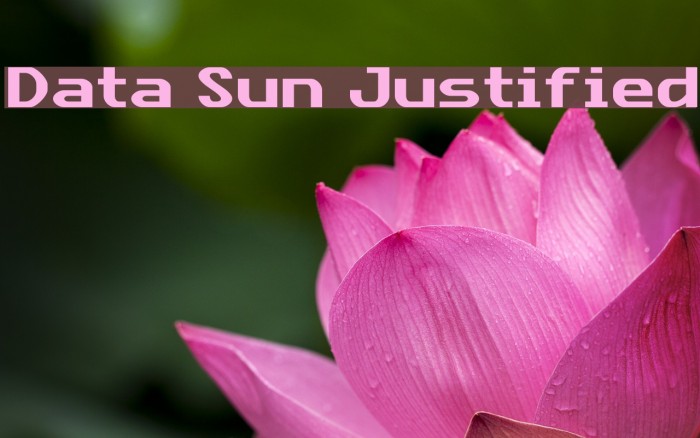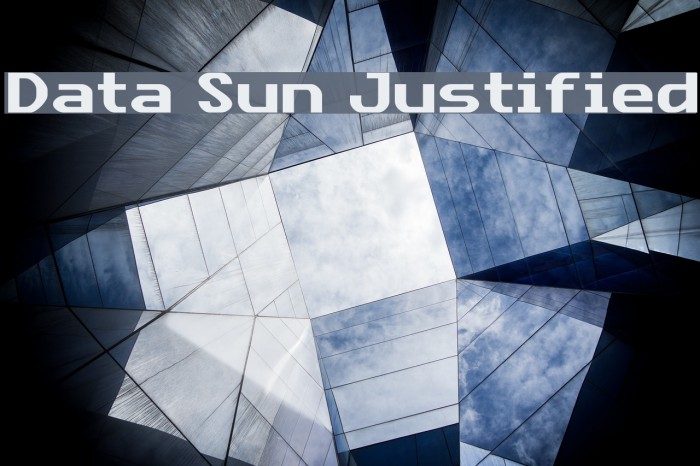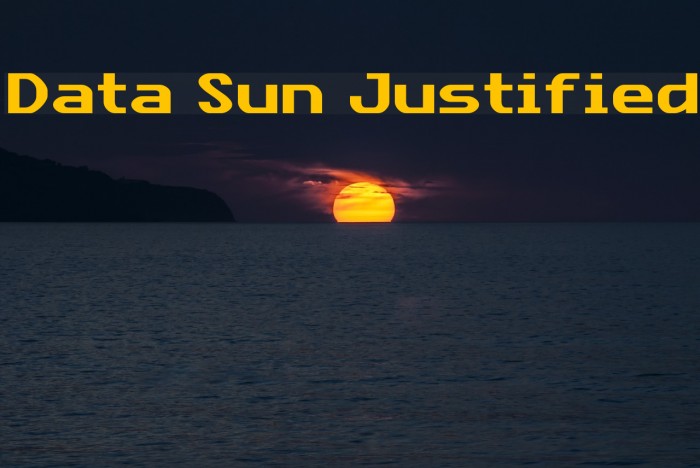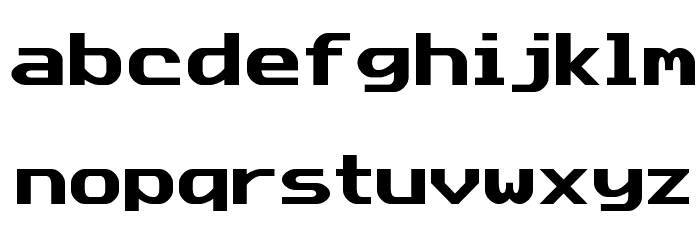
Data Sun Justified Font
Data Sun Justified Description
This font exhibits a bold and modern aesthetic with a geometric structure. The uppercase letters are uniform in height, featuring strong, straight lines and sharp angles that convey a sense of stability and strength. The lowercase letters maintain a consistent style, with rounded edges that soften the overall appearance, adding a touch of approachability. The numerals are clear and legible, designed to complement the letterforms seamlessly. Special characters are crafted with the same attention to detail, ensuring a cohesive look across all glyphs. This font's design is both functional and stylish, making it suitable for a variety of applications.
A bold, modern font with geometric shapes and rounded edges from Uncategorized fonts.
- Proposed Projects: Ideal for branding, advertising, headlines, and digital interfaces.
- Use Case: Headlines, Logos, Digital interfaces